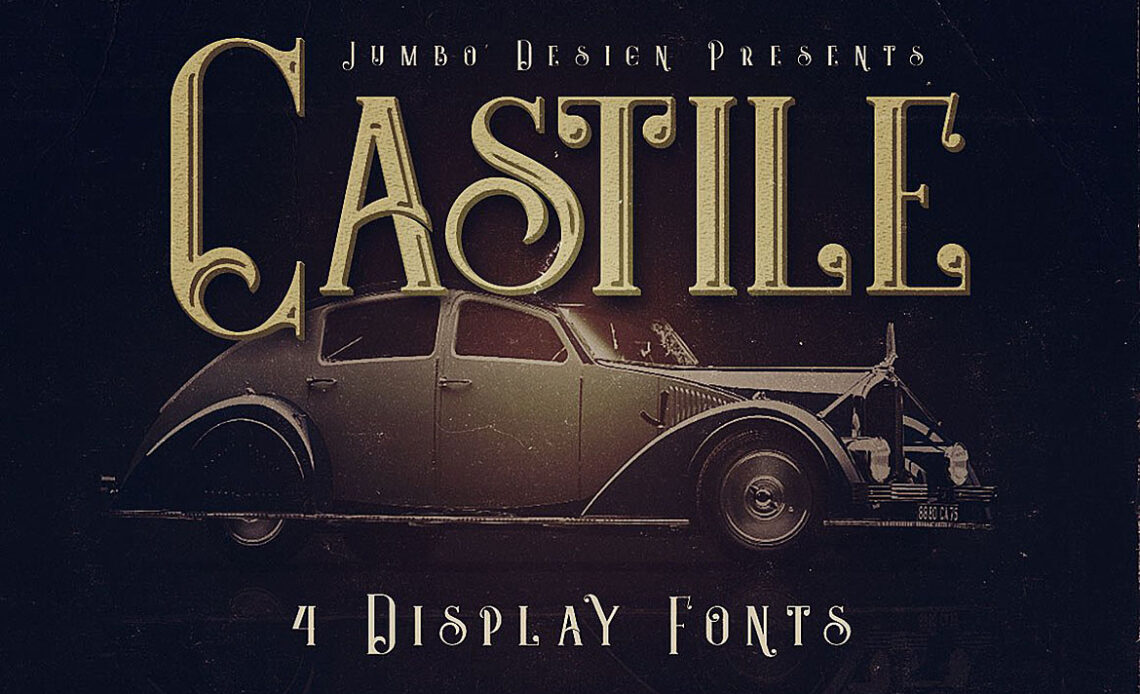
Are you ready to inject your designs with a touch of art deco elegance and timeless glamour? Look no further than the Castile Font, a display font masterpiece brought to you by the renowned JumboDesign. This captivating display font is a true work of art, skillfully crafted to transform your designs into visual masterpieces.
Step into the world of art deco with Castile Font, where clean lines, geometric shapes, and intricate details dance together in perfect harmony. This display font is not just a collection of letters; it's an expression of creativity, a celebration of style, and an invitation to make a bold statement. Whether you're a seasoned designer or just starting your creative journey, Castile Font is the key to unlocking your design potential.
Immerse yourself in the versatility of Castile Font. With its diverse range of styles, you have the freedom to tailor your designs to suit any project, any mood, and any aesthetic. From bold and attention-grabbing headlines to elegant and sophisticated body text, Castile Font effortlessly adapts to your vision. Unleash your creativity and explore the endless possibilities that await.
Castile Font is not just a font; it's an experience. It's the feeling of satisfaction as your designs come to life, exuding an aura of sophistication and timeless charm. It's the thrill of seeing your words dance across the screen, captivating your audience with their grace and elegance. It's the joy of creating something truly unique and memorable.
So why settle for ordinary fonts when you can embrace the extraordinary? Embrace the Castile Font, and embark on a creative journey that will leave you inspired, fulfilled, and eager for more. Let your designs shine with the brilliance of art deco, and let your words leave a lasting impression. Download Castile Font today and unlock the true power of design.